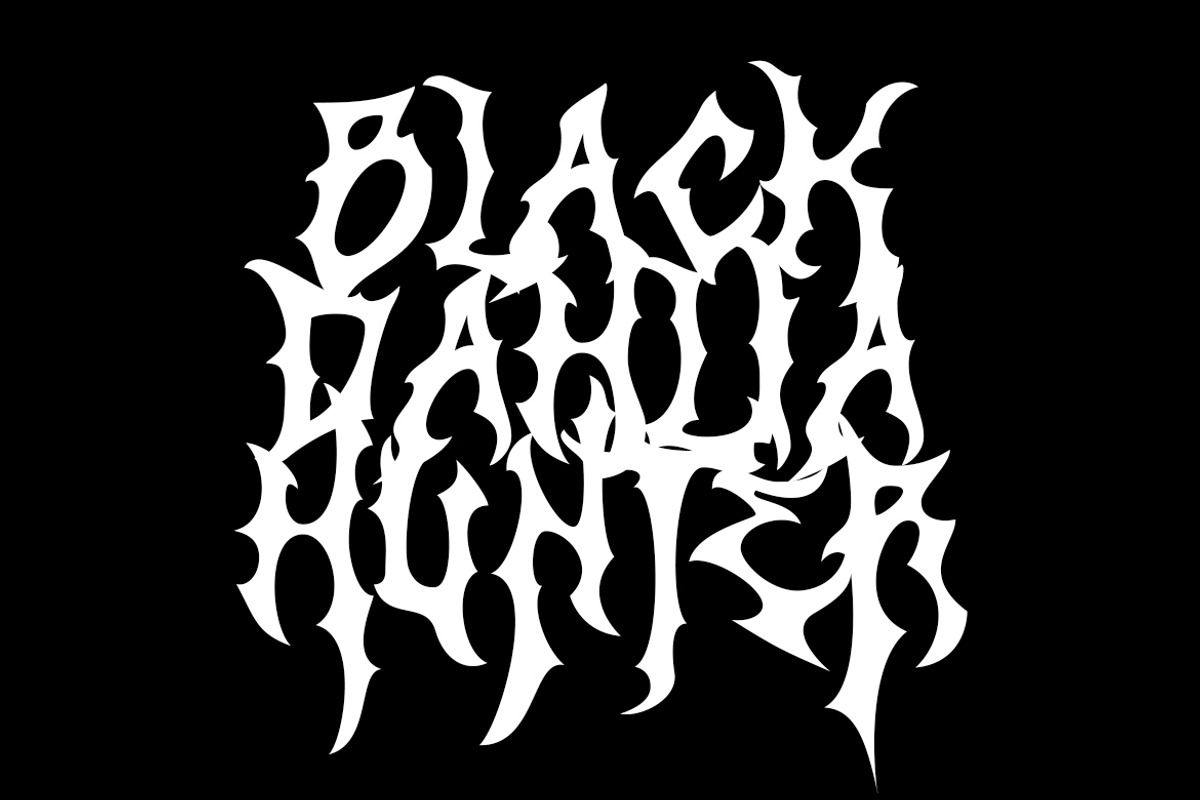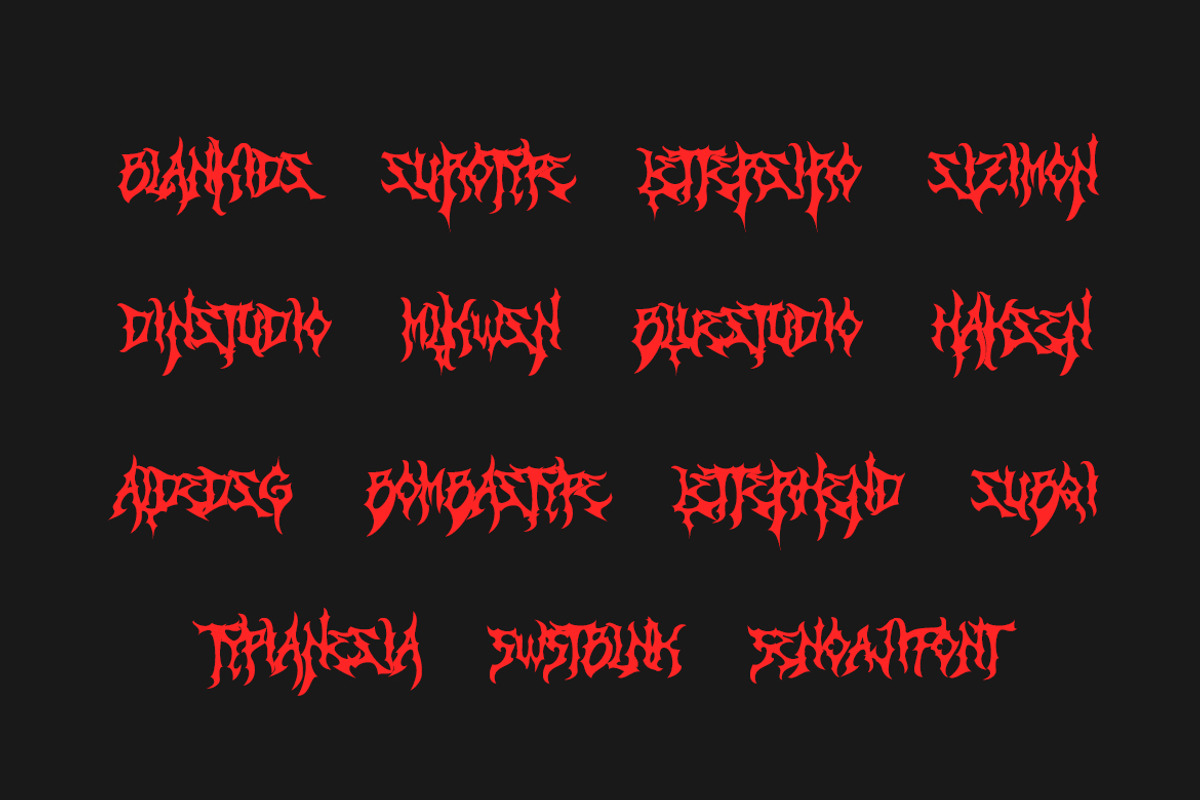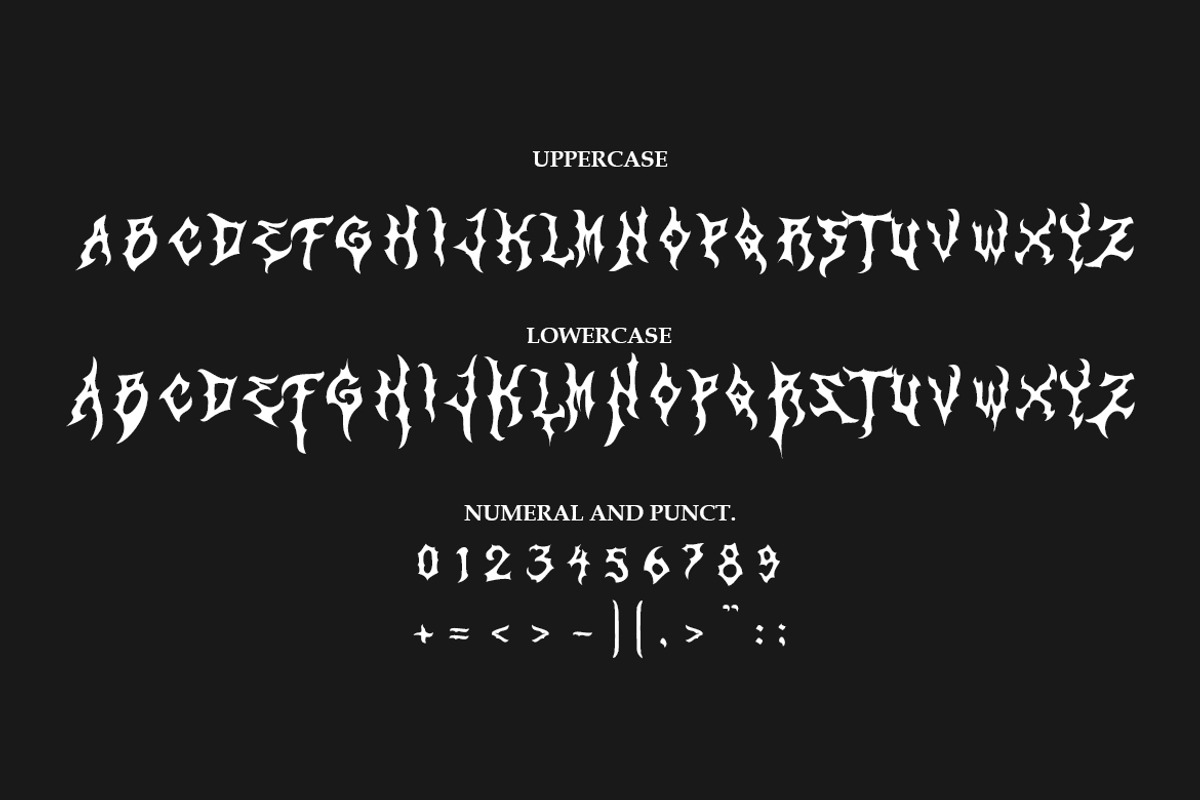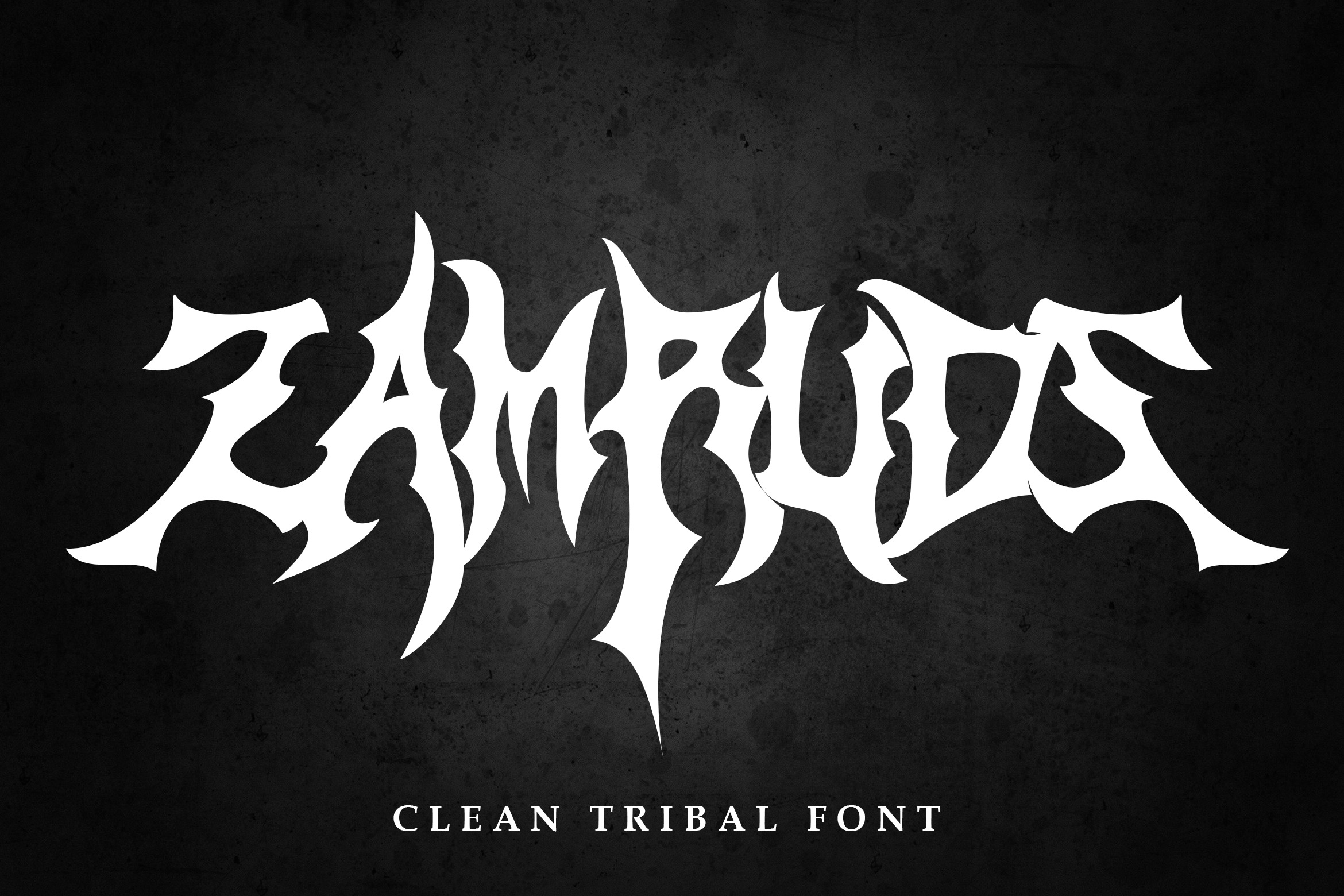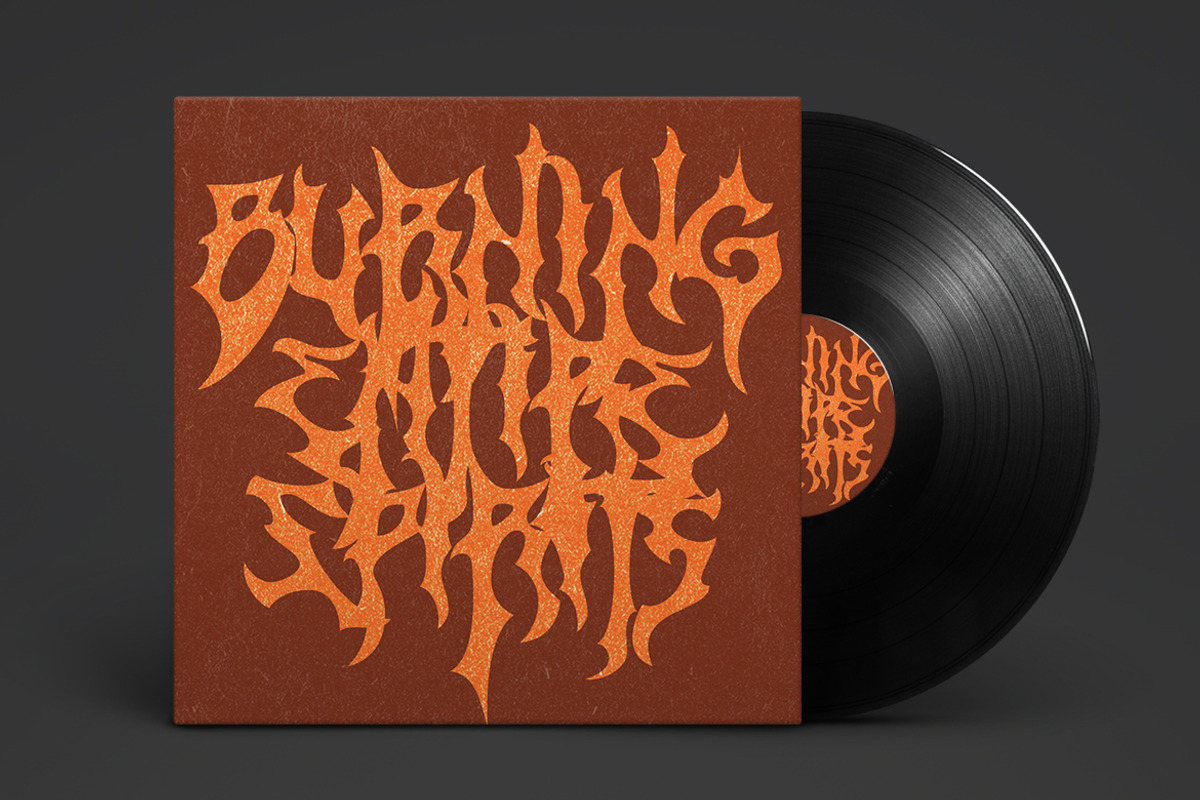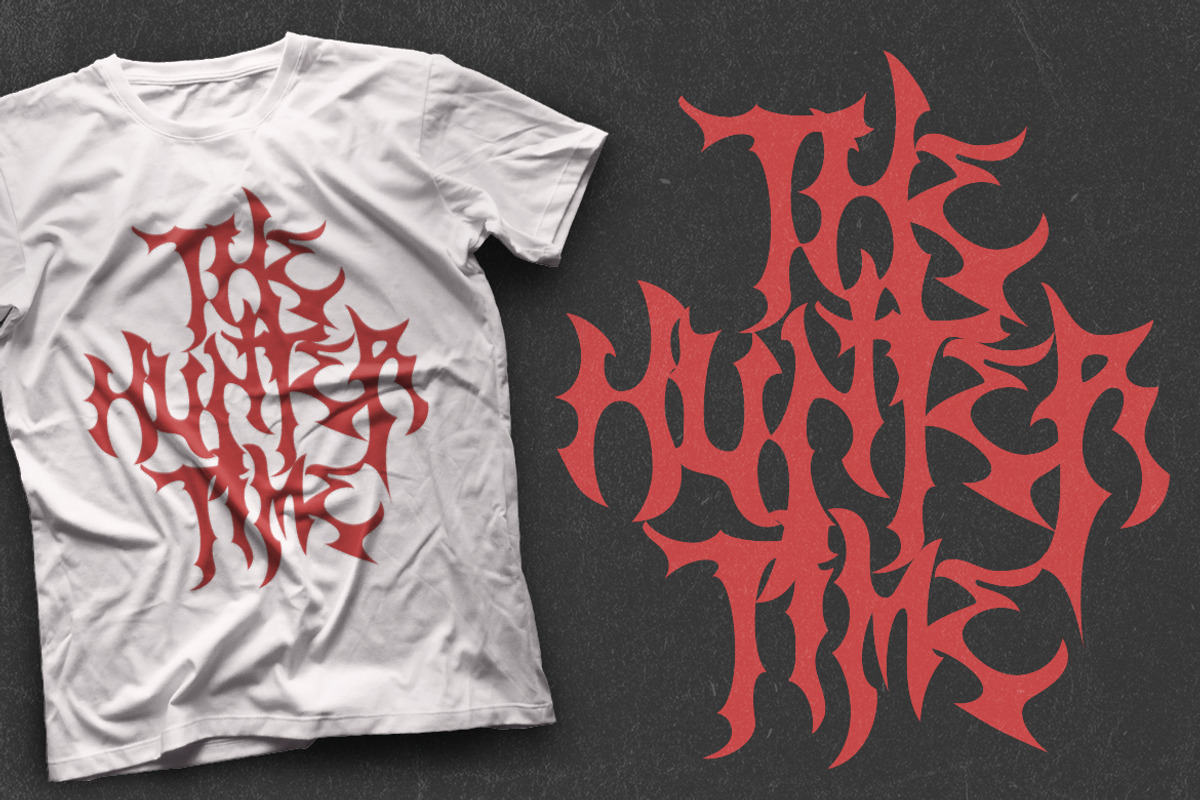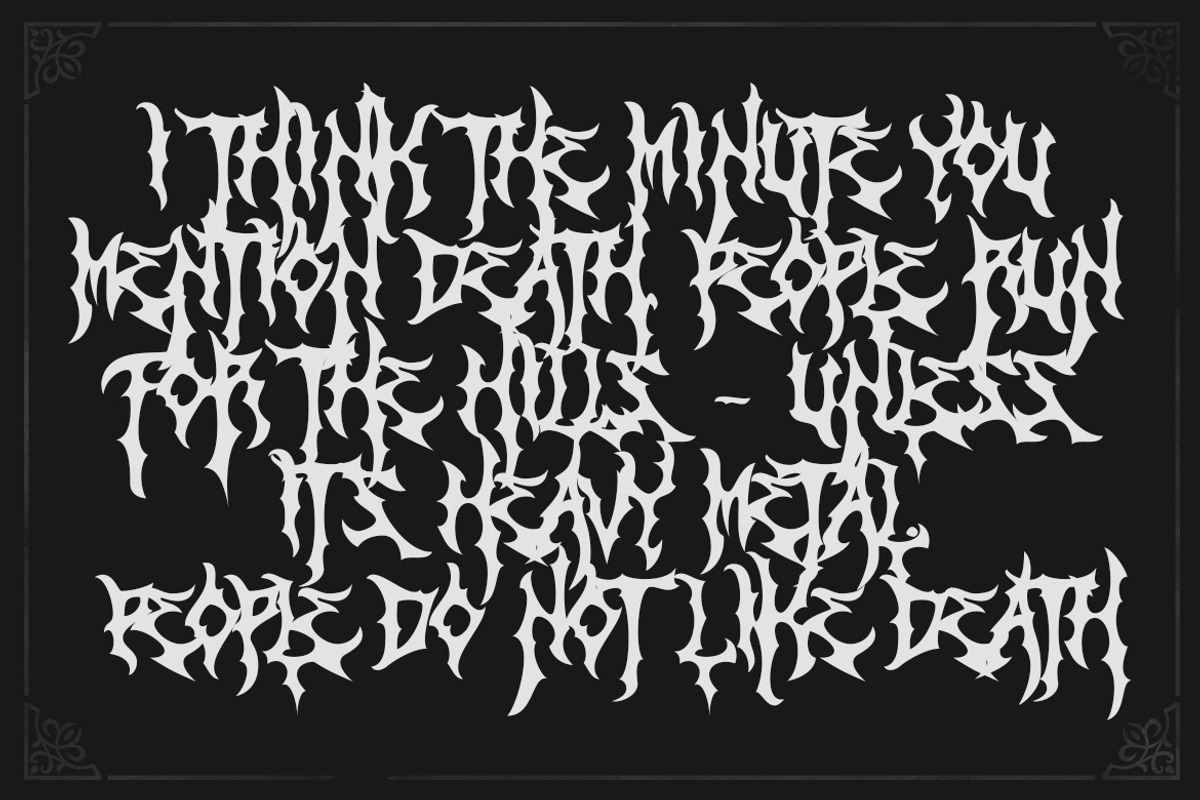
Zamruds Black Metal Font
Introducing Zamruds, a clean and sharp black metal font designed to bring a tribal aesthetic to your projects. The Zamruds font features striking, angular lines and a bold presence, perfect for creating eye-catching logos, album covers, merchandise, posters, and more. Its unique style combines the essence of black metal with a clean, tribal influence, making it a versatile choice for various design needs. Whether you're working on branding for a band or adding a fierce touch to your designs, Zamruds delivers a powerful and unforgettable look.